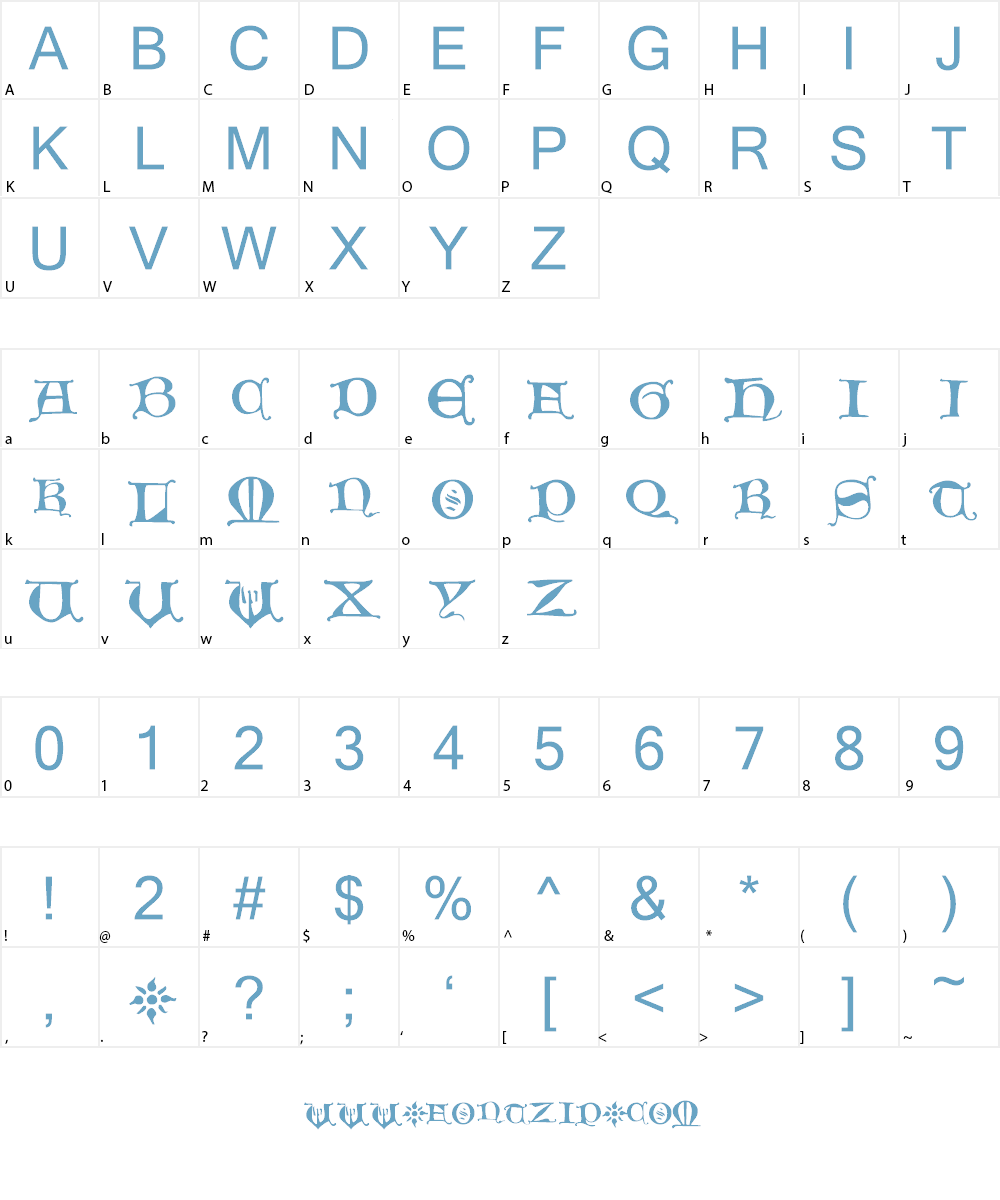
"Hours in the Rain" Is inspired from a Gothic manuscript based on unicals, the manuscript dates from 1480. I did the lettering on a heavy water color paper. This is a great font to print out and go over with gold paint.